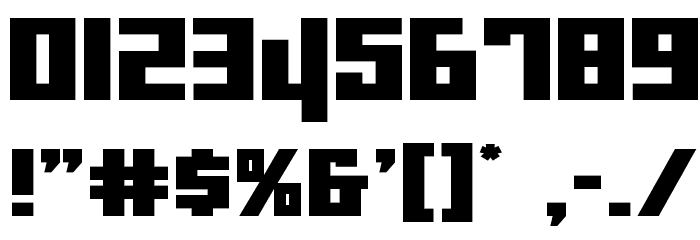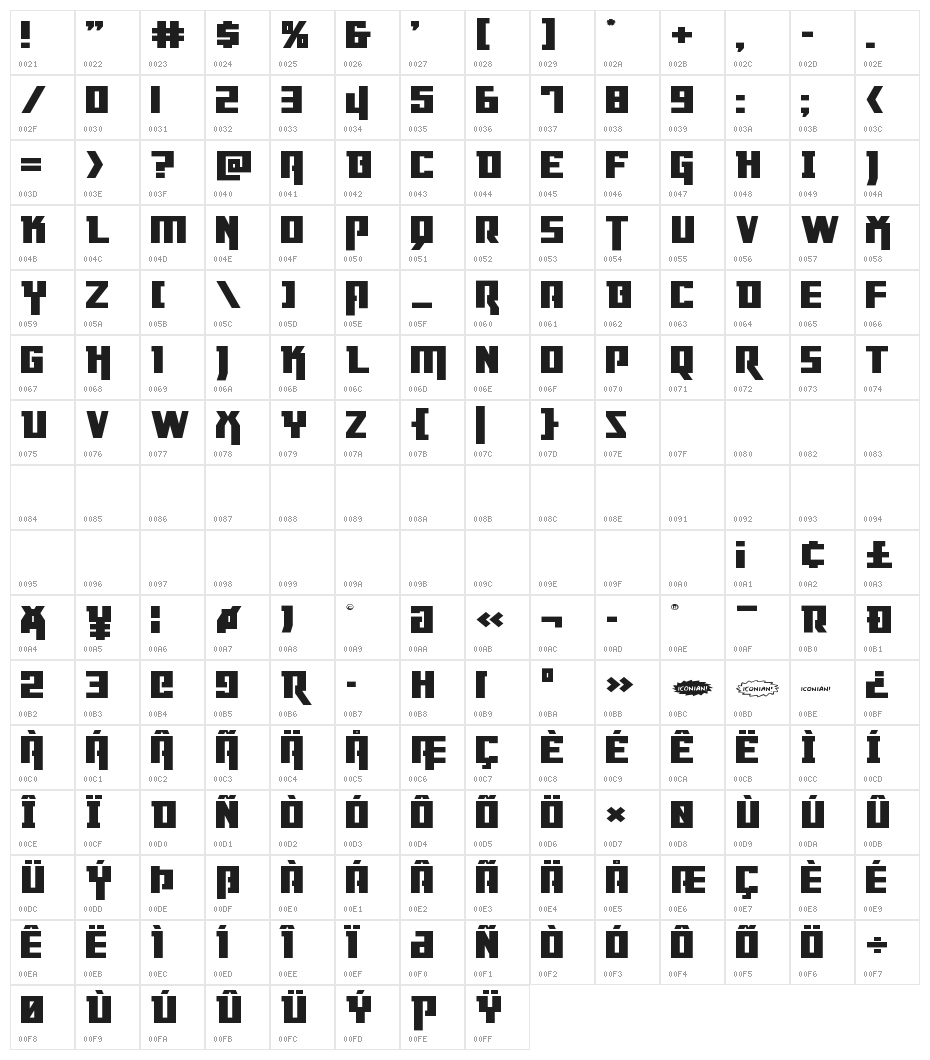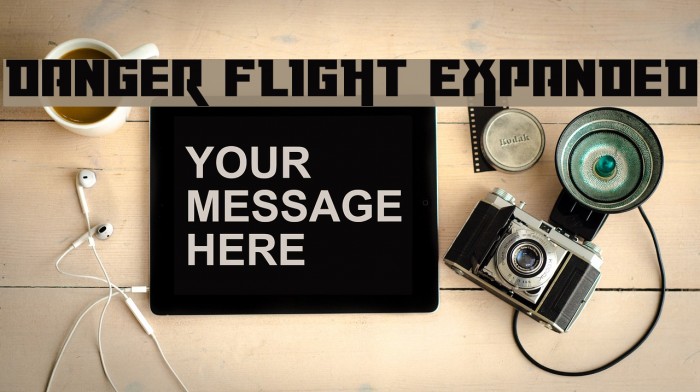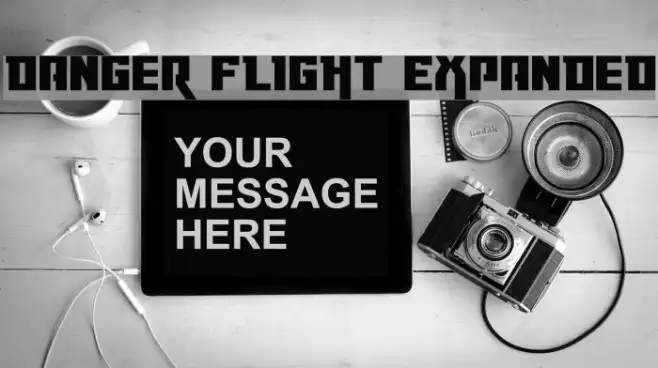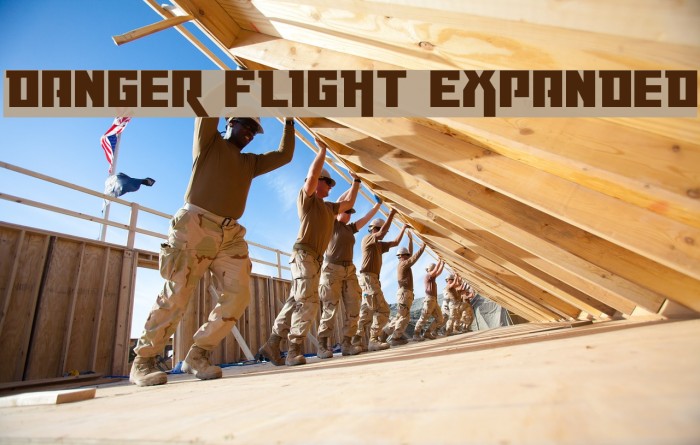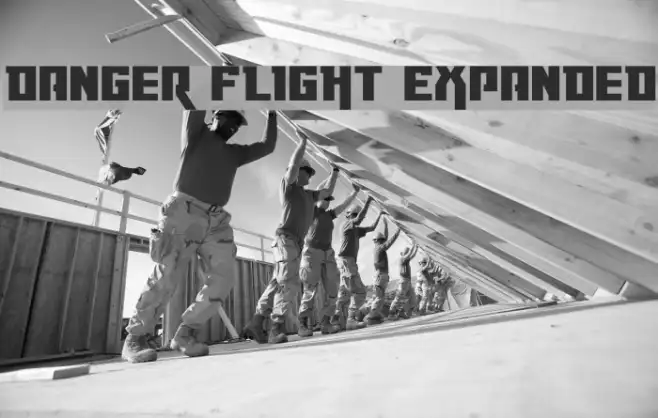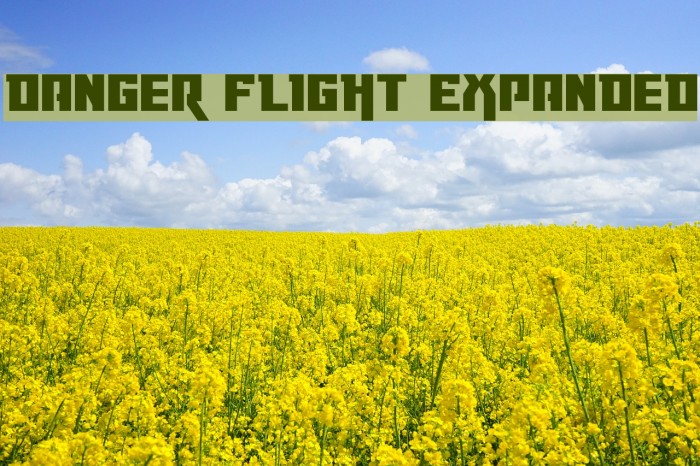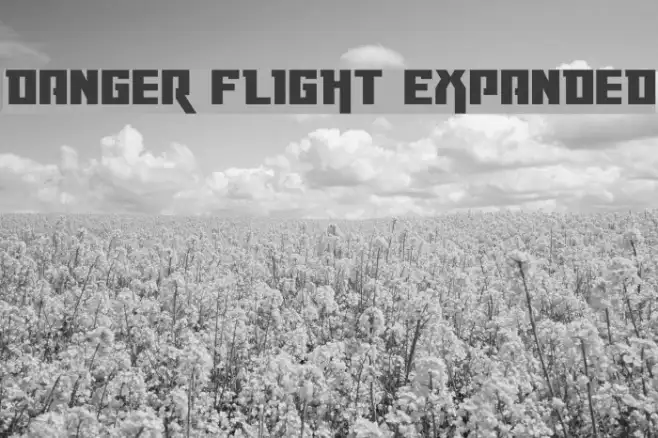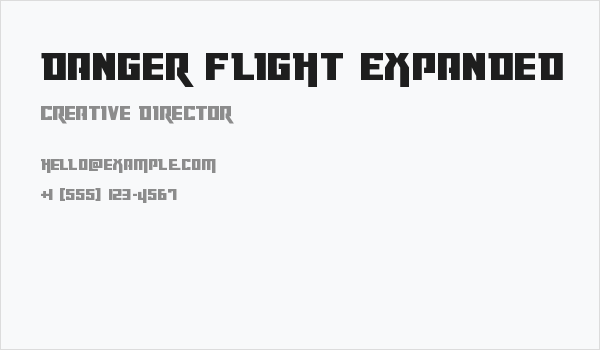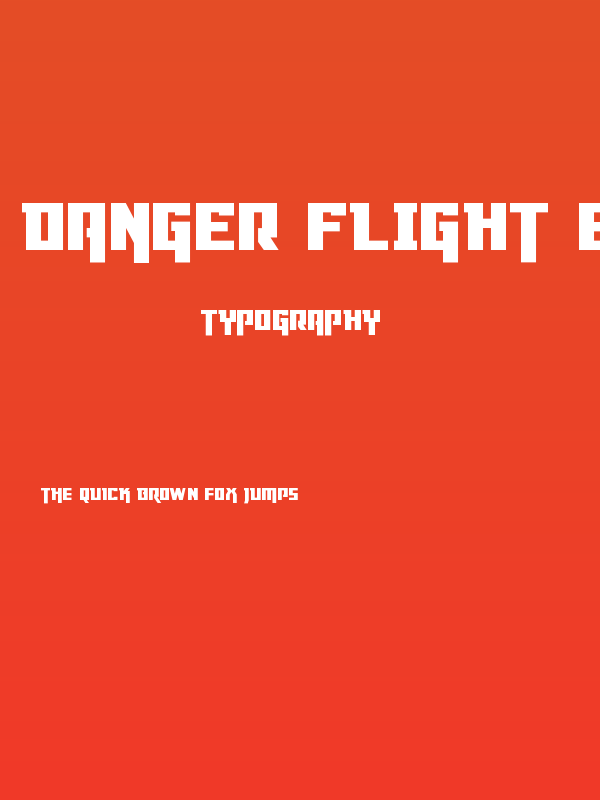
Danger Flight Expanded Font
Danger Flight Expanded Description
This font features a bold and geometric style with sharp angles and a blocky appearance. The characters are uniformly thick, giving it a strong and impactful presence. The uppercase letters are particularly striking, with a futuristic and industrial feel. The lowercase letters maintain the same boldness, ensuring consistency throughout the typeface. Numbers and special characters are designed to match the overall aesthetic, making them suitable for attention-grabbing designs. The font's design is reminiscent of digital or technological themes, making it ideal for projects that require a modern and edgy look.
| Proposed Projects | Ideal for technology branding, video game titles, posters, and any design requiring a modern, impactful typeface. |